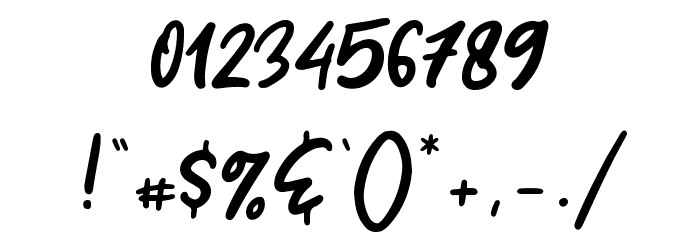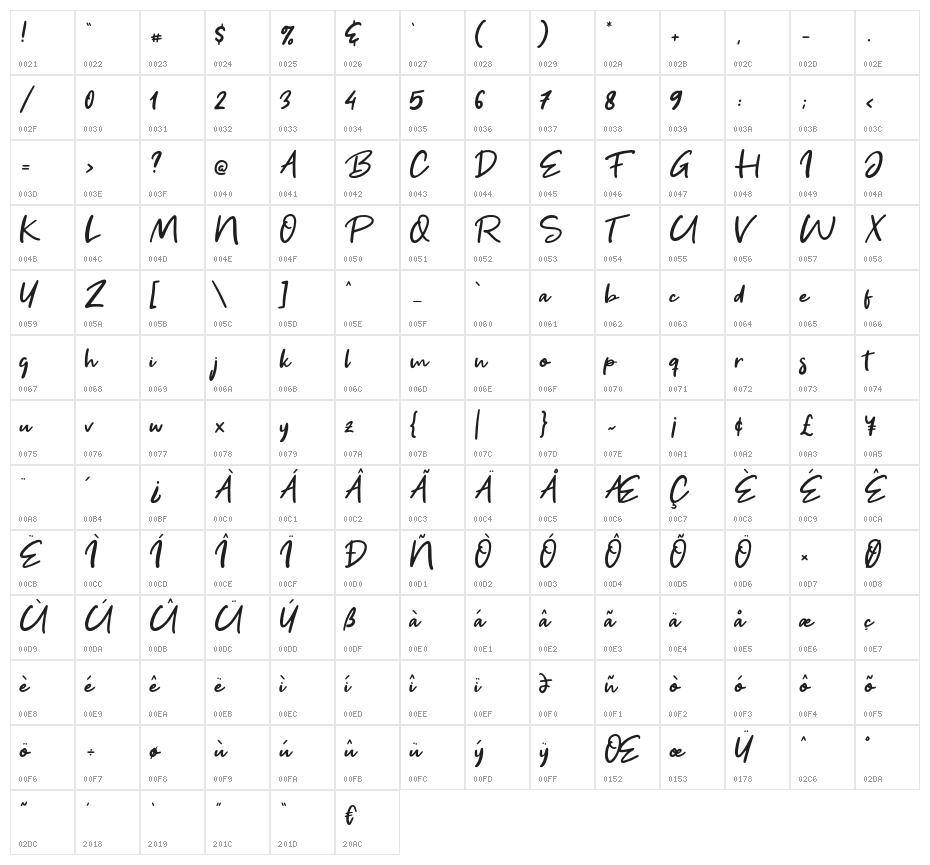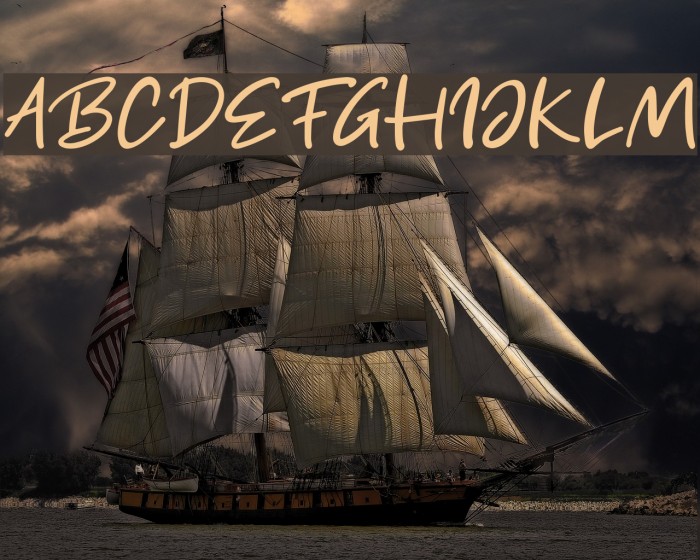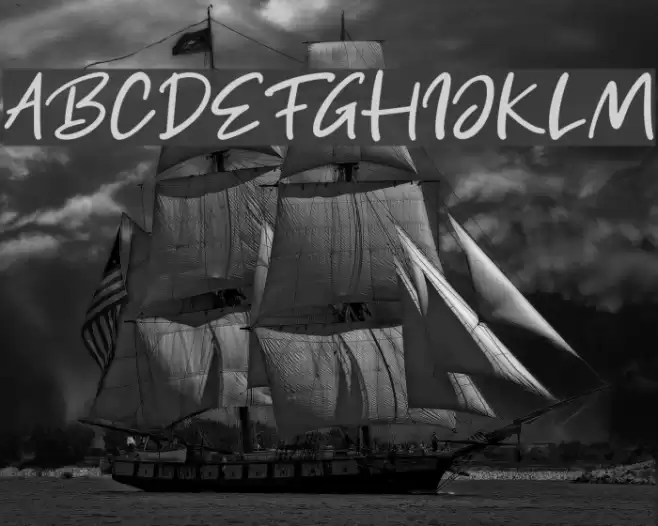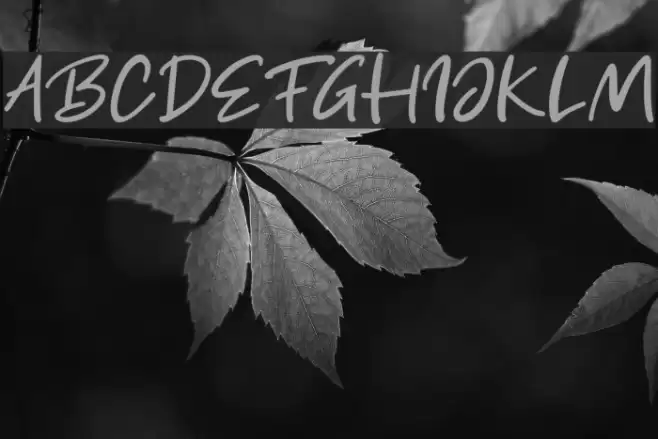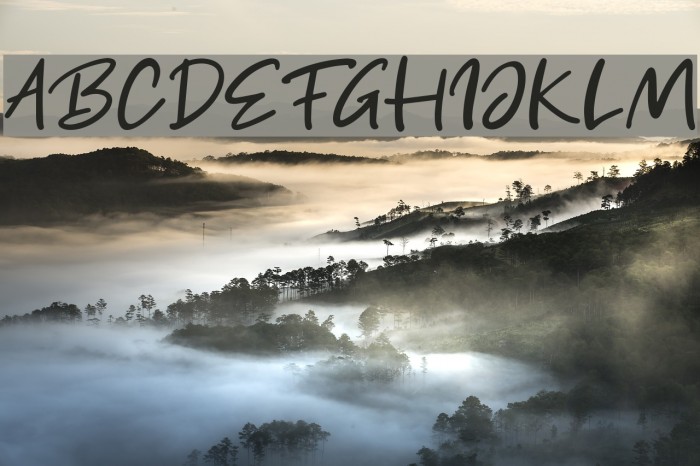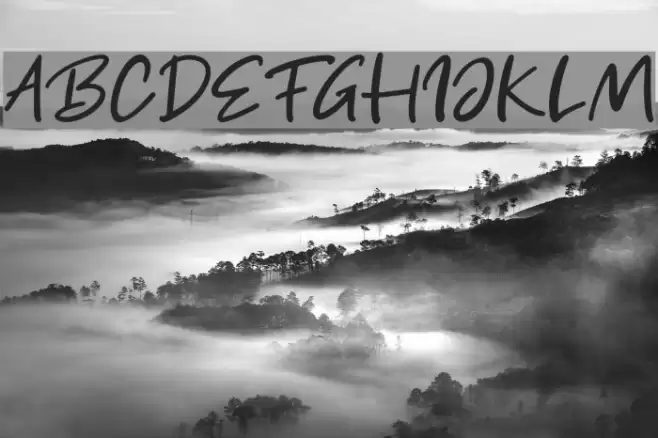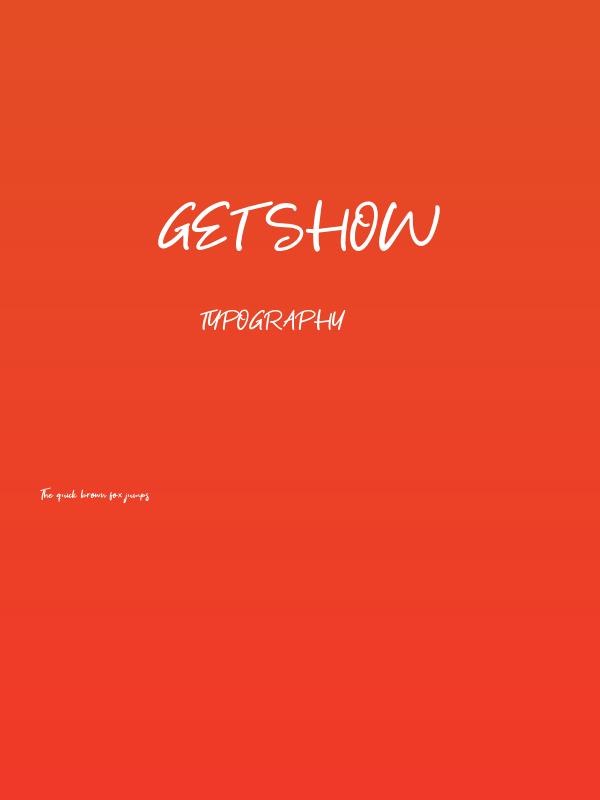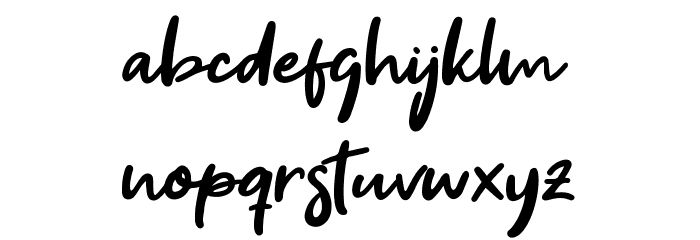
Get Show Font
Get Show Description
This font features a lively and dynamic script style, characterized by its fluid and cursive letterforms. The uppercase letters are bold and slightly slanted, giving a sense of movement and elegance. The lowercase letters maintain a consistent flow, with smooth connections between characters, enhancing readability. Numbers and special characters are designed with the same energetic style, ensuring a cohesive look across all text. The overall appearance is both modern and playful, making it suitable for a variety of creative applications.
Proposed ProjectsIdeal for branding projects, invitations, greeting cards, and social media graphics where a personal and lively touch is desired.